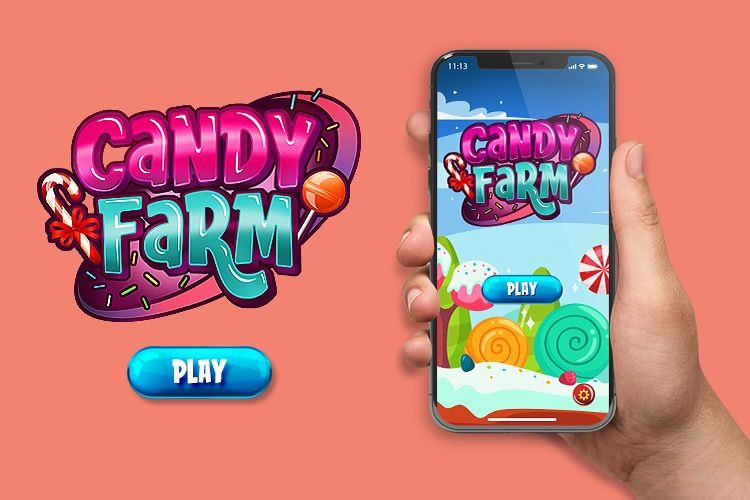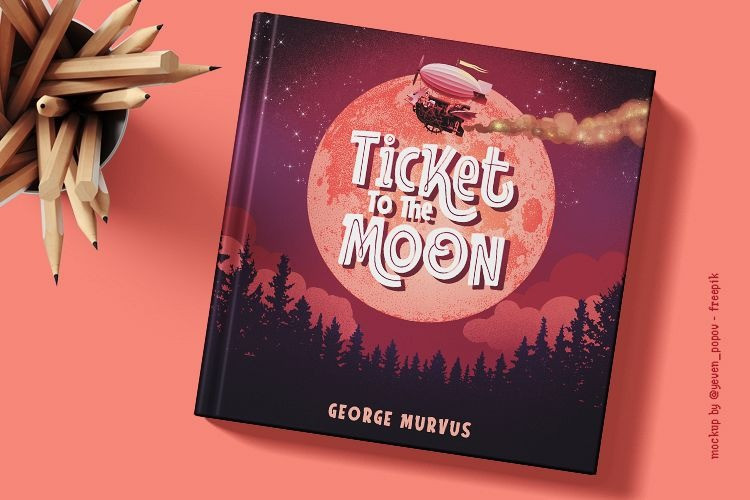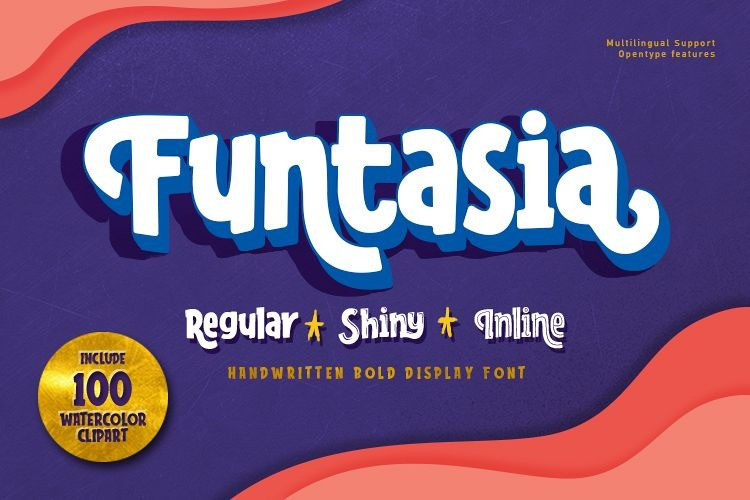
Funtasia Display Font
Funtasia is a bold-Fun font with clean letters that looks simple and modern. Come with three styles will bring a playful and little bit of childish feeling in any design projects.
It’s perfect for children’s books, Mobile games or apps title, funny greeting cards, meal package design, logotypes and much other, where used cartoon or simple abstract graphic.